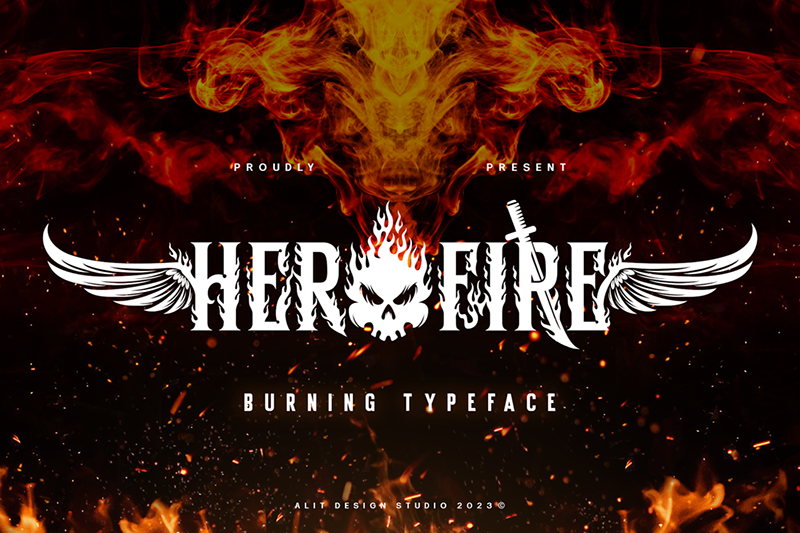
Preview and download Hero fire Font. Created by Alit Design in Gothic Modern styles with Free for personal use license.
Hero Fire is a dynamic and bold typeface that embodies the essence of a powerful superhero. The characters are meticulously crafted with strong serifs, exuding strength and resilience. The design seamlessly blends classic typography with iconic superhero elements, making it a distinctive and impactful choice for display purposes. This is font Demo just for personal use, Not permitted for commercial use. The donation is very appreciated. Please check here for more info about the license: https://alitdesign.net/license/ DOWNLOAD FULL VERSION AND FOR COMMERCIAL USE: https://alitdesign.net/product/hero-fire-typeface/ Creative Market: https://crmrkt.com/7p1xV7 visit my website for full version and commercial use: https://alitdesign.net/ follow my Instagram to update my portfolio: https://www.instagram.com/alitdesign_studio/ Email : info@alitdesign.net |